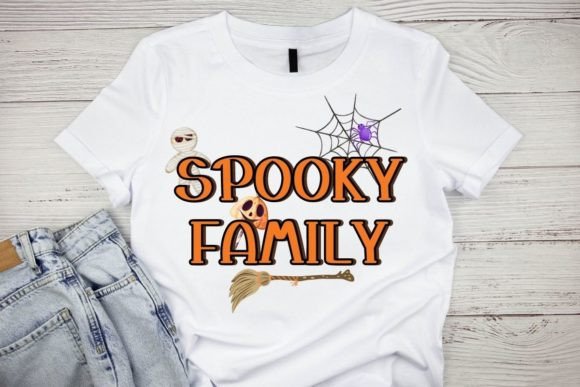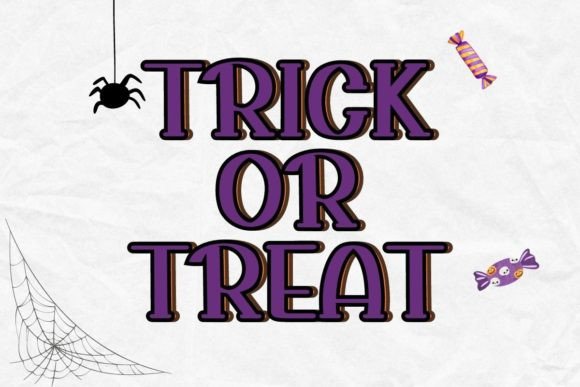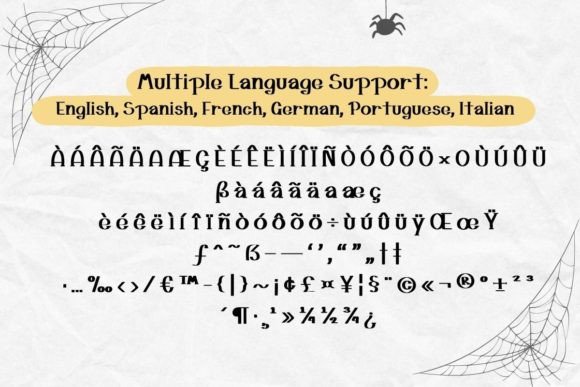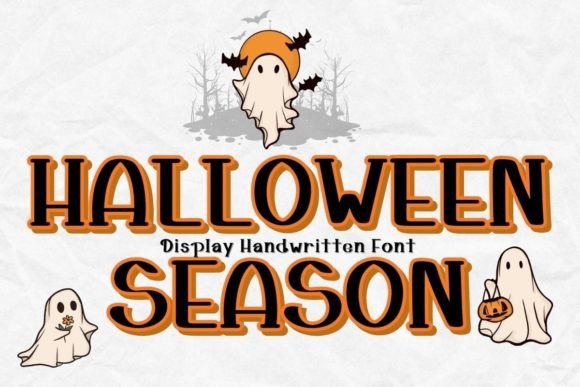
Introducing the Spooktacular Halloween Season Font
As the spookiest time of the year approaches, designers and crafters are on the lookout for the perfect font to add a touch of eerie elegance to their projects. Look no further than the Halloween Season Font, a childish, easy-to-read display font that’s sure to become your go-to for all things Halloween and beyond!
What Makes Halloween Season Font So Special?
Halloween Season Font is a game-changer for designers and crafters who want to add a dash of friendliness to their projects. This font is carefully crafted to convey impeccable friendliness, making it perfect for a wide range of applications, from crafts and digital design to presentations and greeting cards.
Key Features of Halloween Season Font
- Childish and Easy-to-Read: The Halloween Season Font is designed to be highly legible, making it perfect for use in a variety of projects, from signs and posters to digital graphics and more.
- Display Font: With its bold and playful design, this font is perfect for headlines, titles, and other display text.
- Friendliness: The font’s friendly demeanor makes it perfect for use in projects where you want to convey a sense of approachability and warmth.
- Versatility: Whether you’re working on a craft project, designing a digital graphic, or creating a presentation, the Halloween Season Font is the perfect choice.
Uses for Halloween Season Font
The possibilities are endless when it comes to using the Halloween Season Font. Here are just a few ideas to get you started:
- Crafts: Use the Halloween Season Font to add a personal touch to your Halloween crafts, such as decorations, cards, and gift tags.
- Digital Design: Add a spooky touch to your digital designs, such as social media graphics, blog posts, and website headers.
- Presentations: Make your presentations stand out with the Halloween Season Font, perfect for use in educational settings, business presentations, or anywhere you want to add a touch of personality.
- Greeting Cards: Create spooky-ooky greeting cards for Halloween, birthdays, or any other occasion with the Halloween Season Font.
Why Designers and Crafters Love Halloween Season Font
So, what makes the Halloween Season Font a favorite among designers and crafters? Here are just a few reasons:
- Easy to Read: The font’s clear and legible design makes it easy to read, even at small sizes.
- Flexibility: The Halloween Season Font can be used in a wide range of projects, from digital design to crafts and more.
- Friendliness: The font’s friendly demeanor makes it perfect for use in projects where you want to convey a sense of approachability and warmth.
- Fun: Let’s face it – the Halloween Season Font is just plain fun! It’s the perfect choice for adding a touch of whimsy and personality to your projects.
In conclusion, the Halloween Season Font is a must-have for designers and crafters who want to add a touch of friendliness and personality to their projects. With its childish, easy-to-read design and versatile uses, this font is sure to become your go-to for all things Halloween and beyond. So why wait? Download the Halloween Season Font today and start creating spooktacular projects that will delight and inspire!